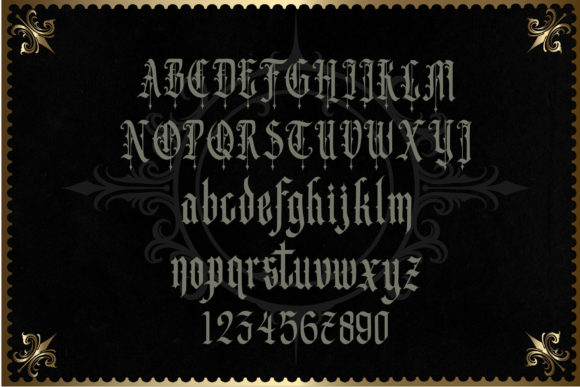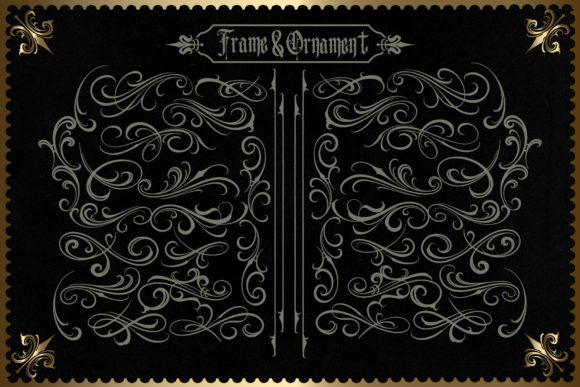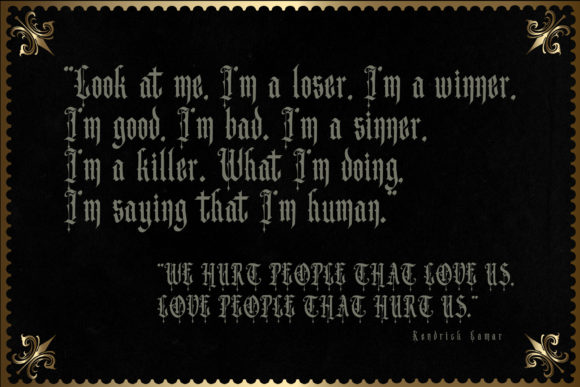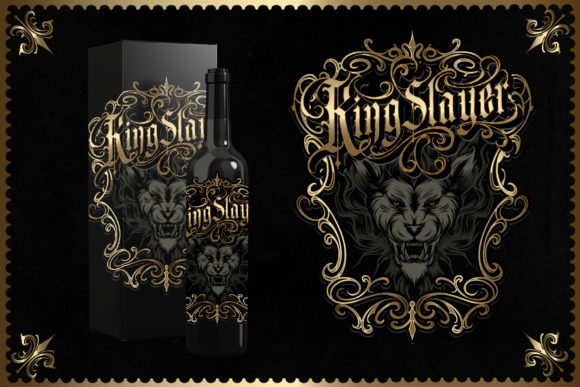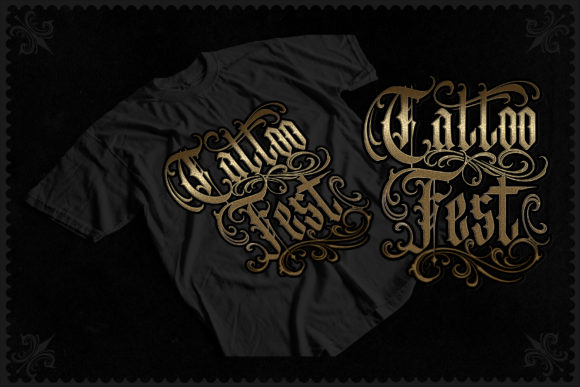
The Birth of a Masterpiece: Discovering the Gematype Font
Have you ever found yourself lost in the world of typography, searching for the perfect font to bring your creative vision to life? That moment of discovery is what makes all the difference, and for designers, it’s a treasure trove of possibilities. For me, that moment came when I stumbled upon the Gematype Font – a modern blackletter font that exudes elegance and sophistication.
Gematype Font is more than just a typeface; it’s a tool that empowers designers to craft unique and captivating visual identities. With its intricate ornaments and bold lines, this font is perfect for product logos, posters, headlines, packaging, badges, and even wedding cards. Whether you’re a seasoned designer or just starting out, the Gematype Font offers endless opportunities to create stunning designs that leave a lasting impression.
Gematype Font Key Features
- Font Family: Gematype comes in a variety of font families, including sans-serif, serif, and script styles.
- Unique Characteristic: Gematype fonts feature a unique blend of modern and vintage elements, making them perfect for designs that require a touch of sophistication and elegance.
- Font Weight: Available in multiple font weights, including light, regular, bold, and extra bold, to add depth and dimension to your designs.
Gematype Font Review
I recently had the chance to work with the Gematype Font, and I must say it’s a mixed bag. ✨ On the positive side, the font is incredibly versatile and works well in a wide range of applications. The bold weight is particularly striking, and the condensed styles add a nice touch of sophistication. The font also features a wide range of languages, making it a great choice for global brands.
One of the standout features of Gematype is its excellent legibility, even at small font sizes. The font is also highly customizable, with a range of OpenType features that allow for advanced typography control.
While Gematype has many strengths, there are a few areas where it falls short. ⚠️ One major limitation is the font’s lack of consistency in certain weights and styles. Some of the more exotic weights, such as the sans-serif styles, can feel a bit awkward and inconsistent with the rest of the font.
Additionally, the font’s italic styles can sometimes feel a bit too slanted, which can be jarring to the eye. Finally, the font’s support for certain languages is a bit spotty, which can be a problem for brands that need to support multiple languages.
Overall, I would give Gematype a solid 3.5 out of 5 stars. While it has many strengths, its limitations hold it back from being a truly top-tier font. However, it’s still a great choice for many applications, and its versatility and customizability make it a solid addition to any designer’s toolkit.
- Wide range of languages supported
- Highly customizable with OpenType features
- Excellent legibility at small font sizes
- Bold weight and condensed styles
Gematype font is commonly used for:
- Headlines and titles.
- Emphasis and highlighting.
- Branding and logos.